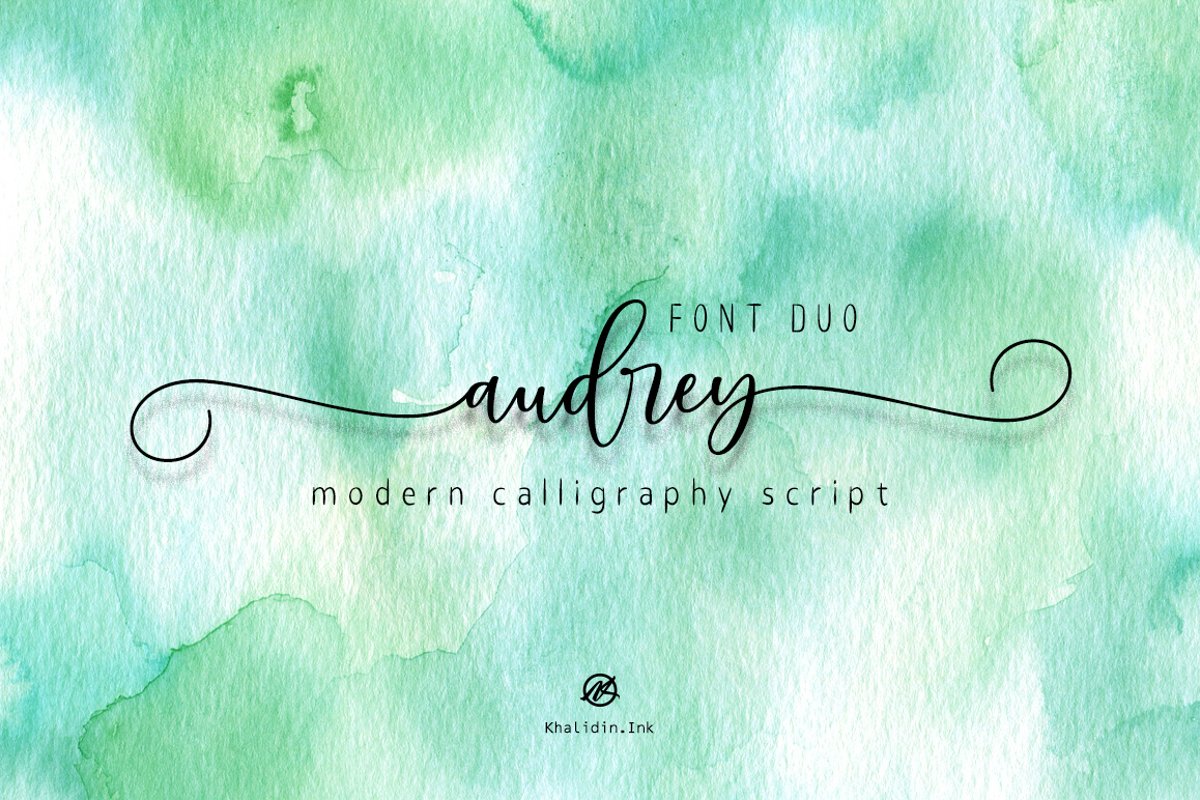
audrey Script | Font Duo
AUDREY SANS
Audrey Script
Introducing the audrey
Script Font duo is a beautiful and sweet script that will turn any
design project into a true piece of art. This font also supports